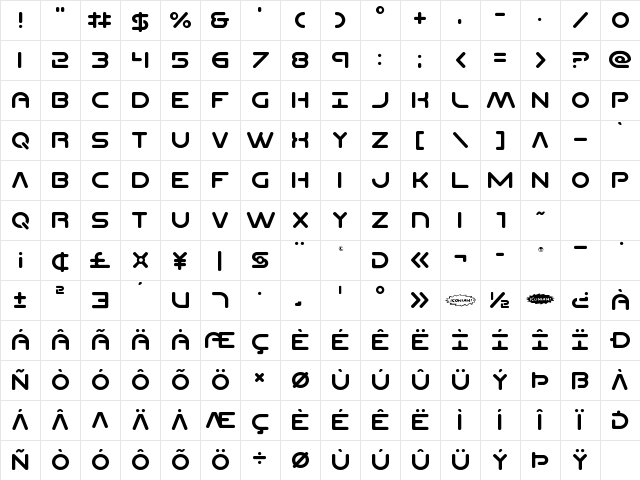
Planet N Compact Regular
Design Context for Planet N Compact
Planet N Compact is a composed and adaptable typeface that performs quietly and consistently across a wide range of design contexts. Its narrow stance lets it pack a punch even in space-constrained designs.
Pro Tip: Use Planet N Compact in both headline and body roles to test its range before committing to a single application.